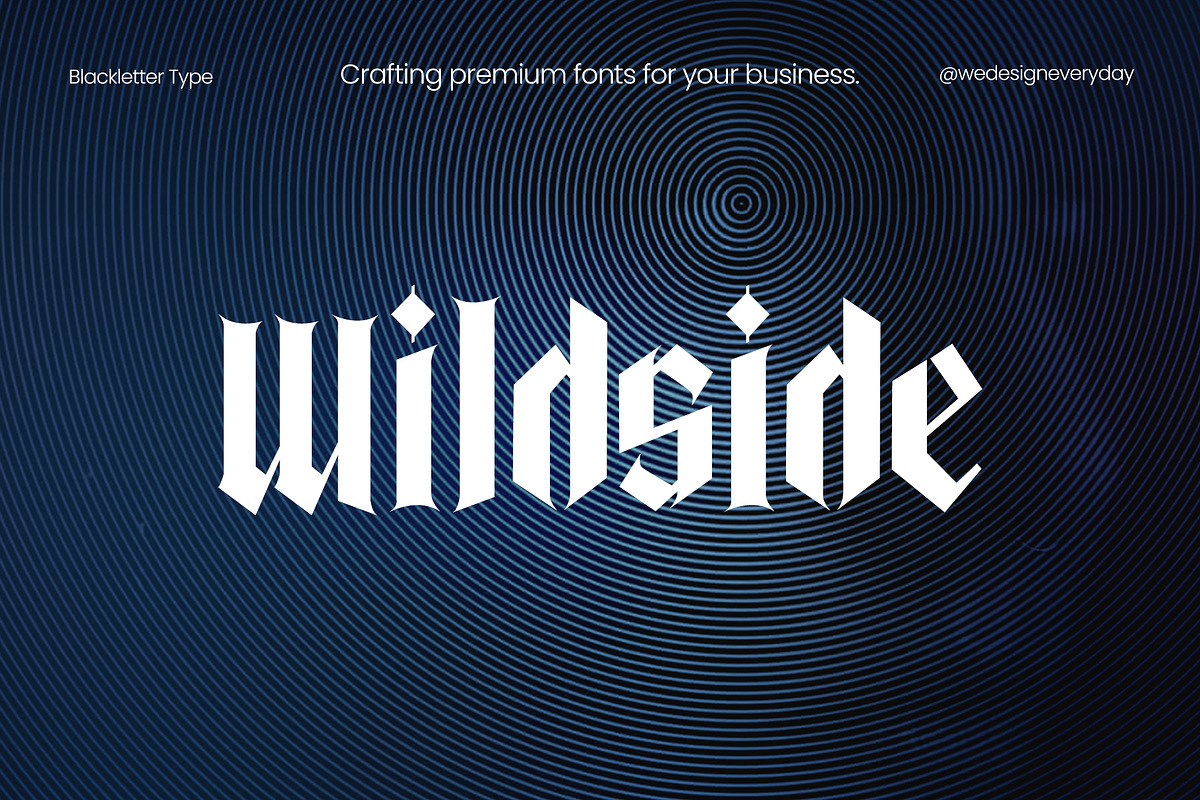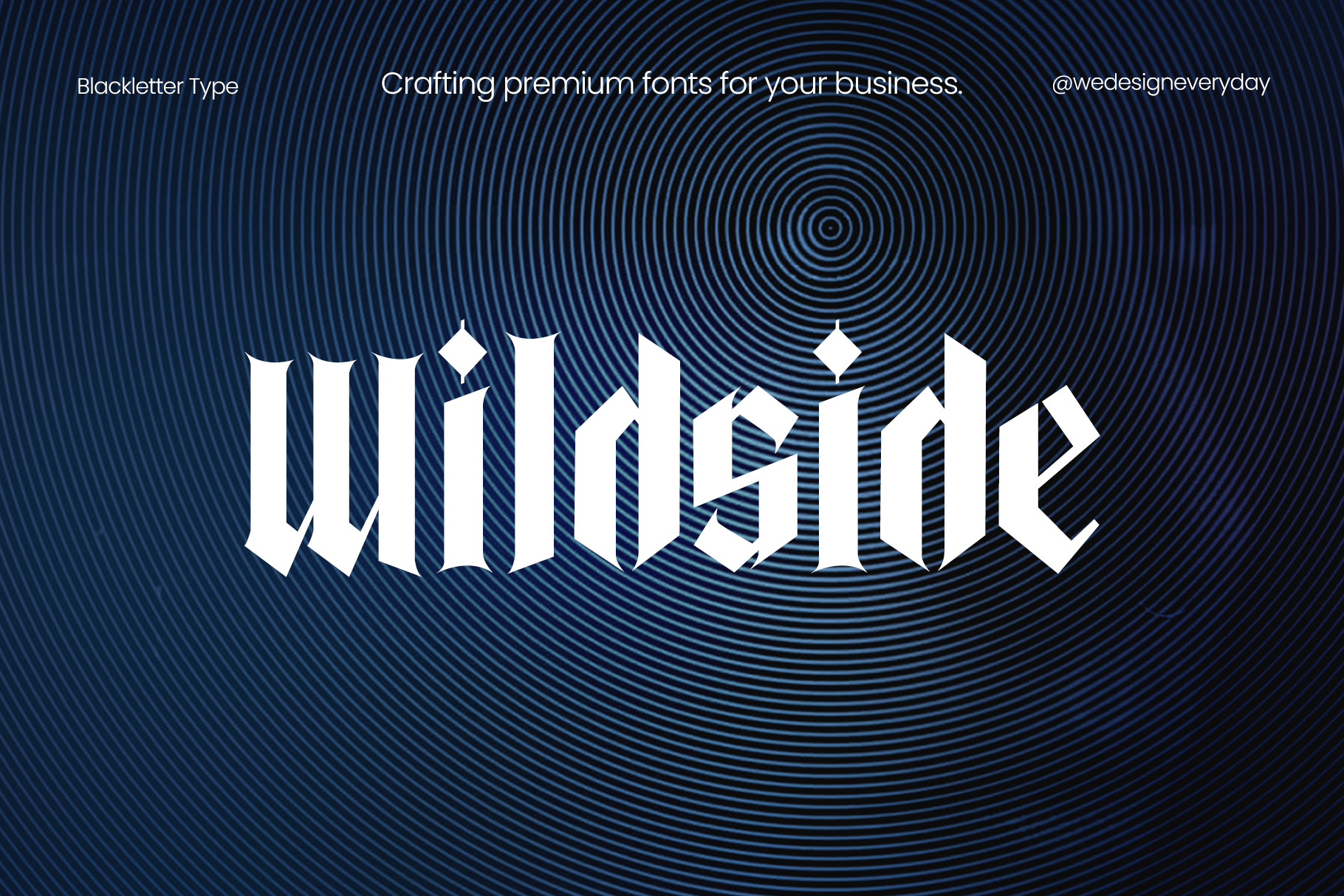
Wildside Blackletter Font
The Wildside Blackletter Gothic Typeface includes a full set of capital and lowercase letters, as well as numerals, punctuation.
Perfect for Tattoo and street lettering and for many designs and products.